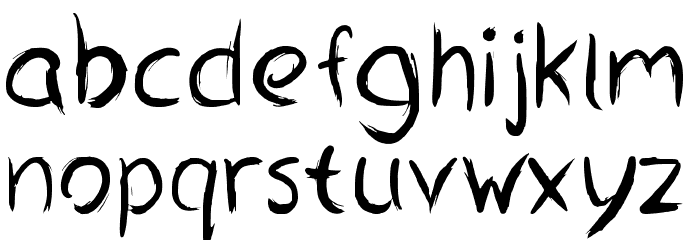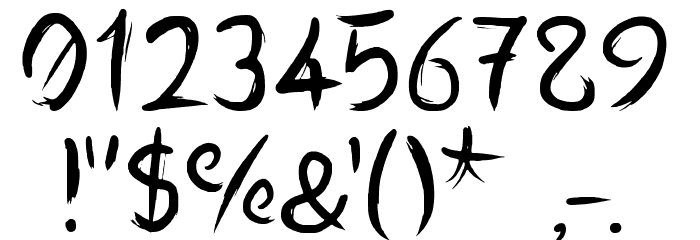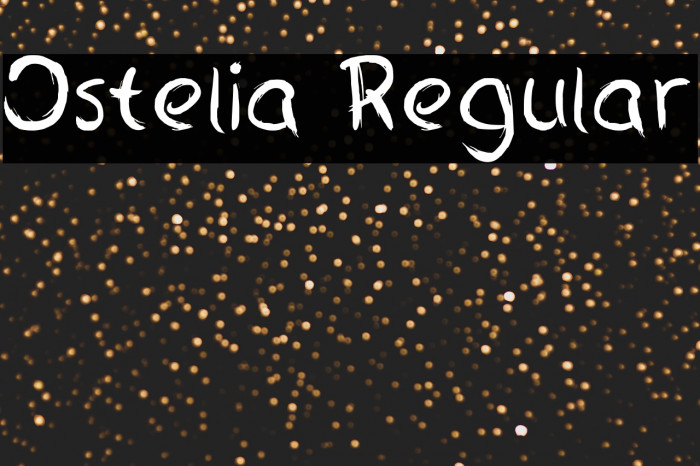
Ostelia Regular Font
This font features a dynamic and expressive style with brush-like strokes that convey a sense of energy and movement. The characters are irregular and organic, with varying thicknesses that give it a hand-drawn appearance. The uppercase letters are bold and assertive, while the lowercase letters maintain a consistent flow, enhancing the font's artistic flair. The numerals and special characters follow the same expressive style, making the font suitable for creative and informal applications. Its unique design is perfect for projects that require a personal touch or a bold statement.
A dynamic, brush-style font with expressive, hand-drawn strokes.
- Font: Ostelia Regular
- Proposed Projects: Ideal for artistic projects, posters, branding, and any design requiring a bold, personal touch.